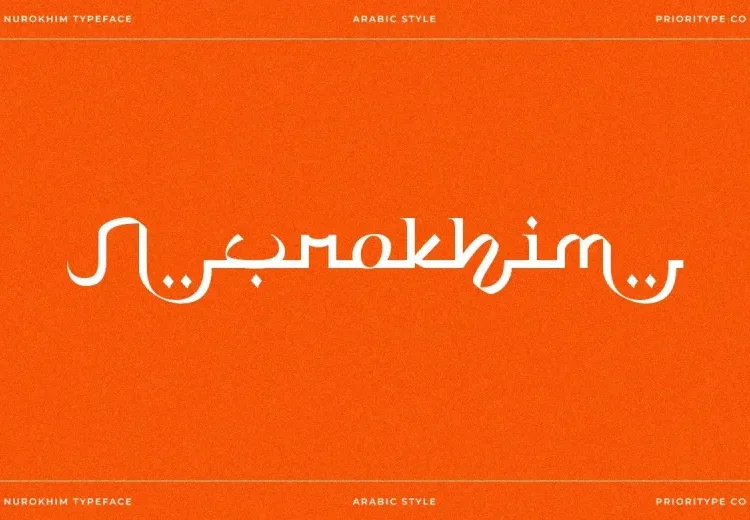
Nurokhim Font
in Arabic
Nurokhim is a sophisticated Arabic-style font that brings an exquisite touch of elegance to any design project. Crafted to enhance clarity while maintaining a professional aesthetic, Nurokhim is ideal for a range of applications including branding, logo design, and poster creation. Its refined character and style make it a standout choice for projects that demand a touch of class and sophistication.